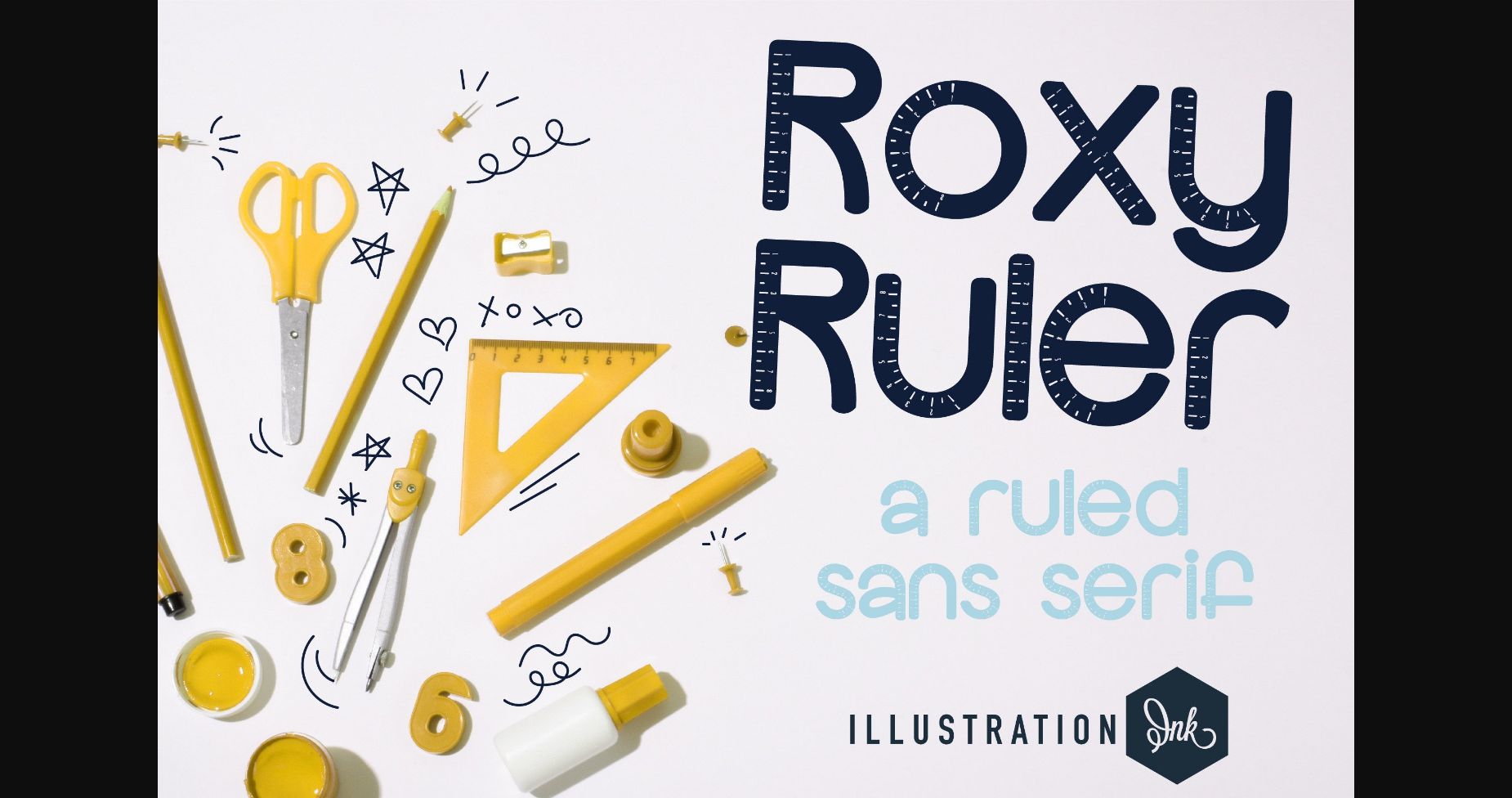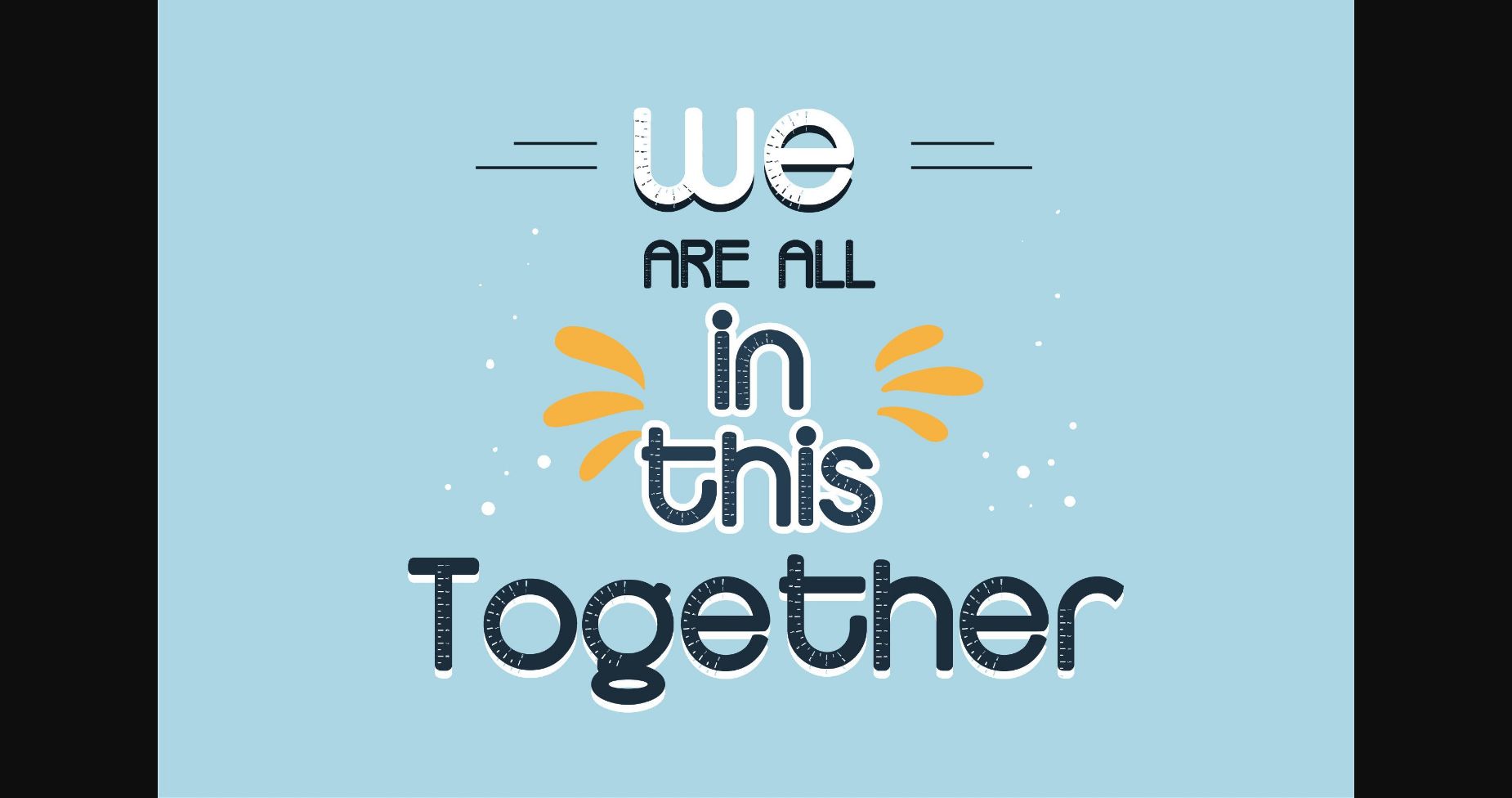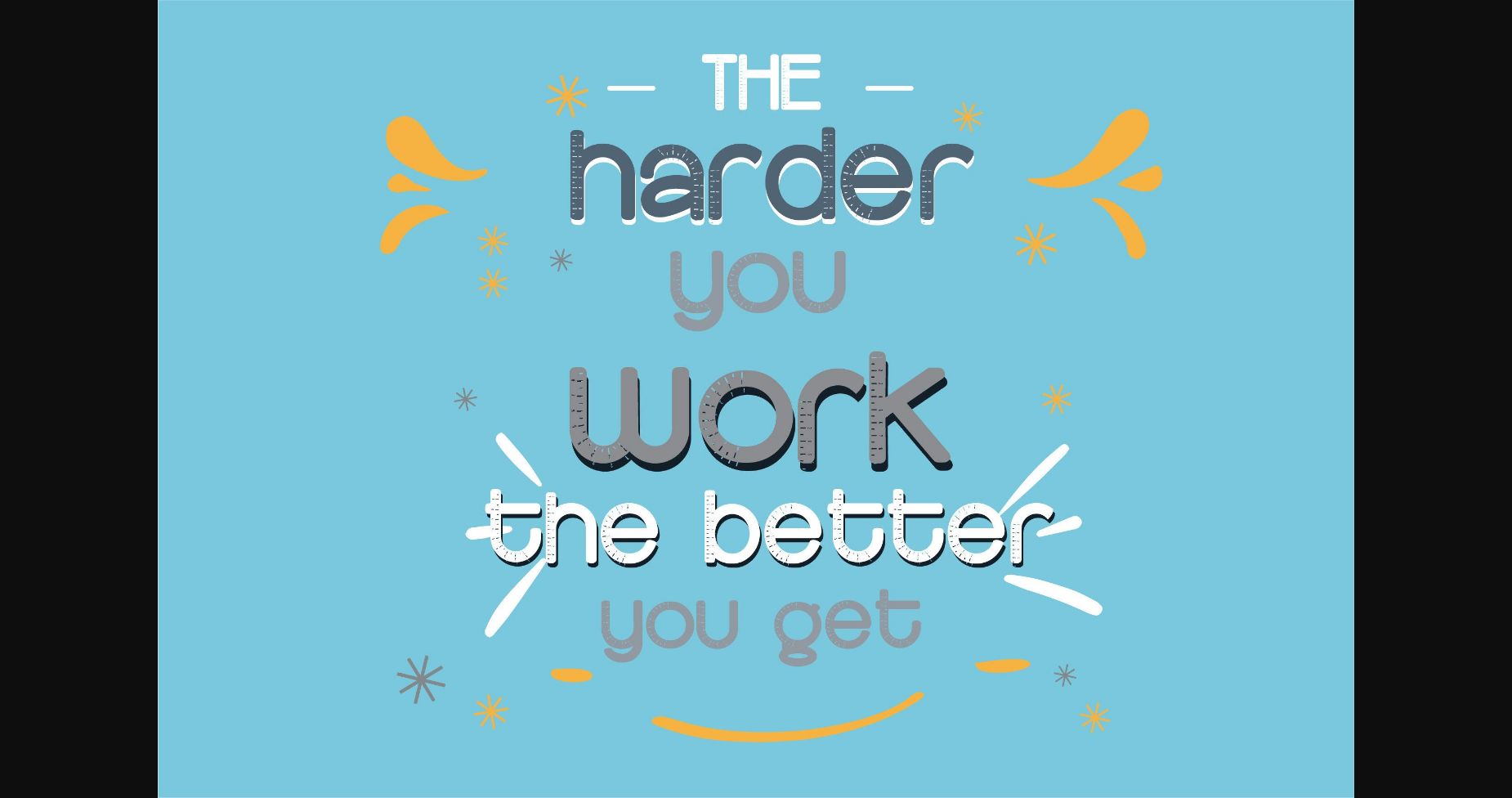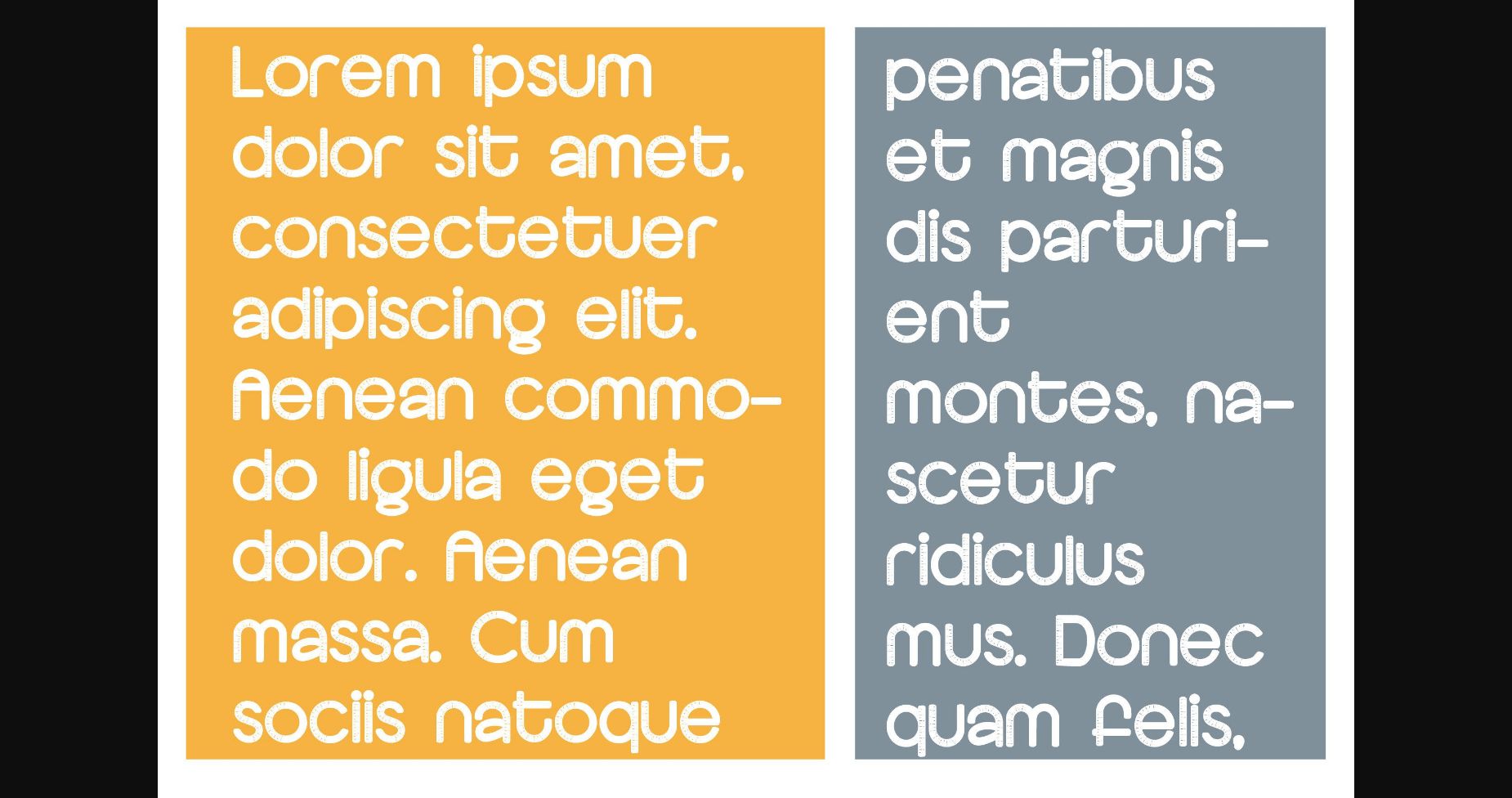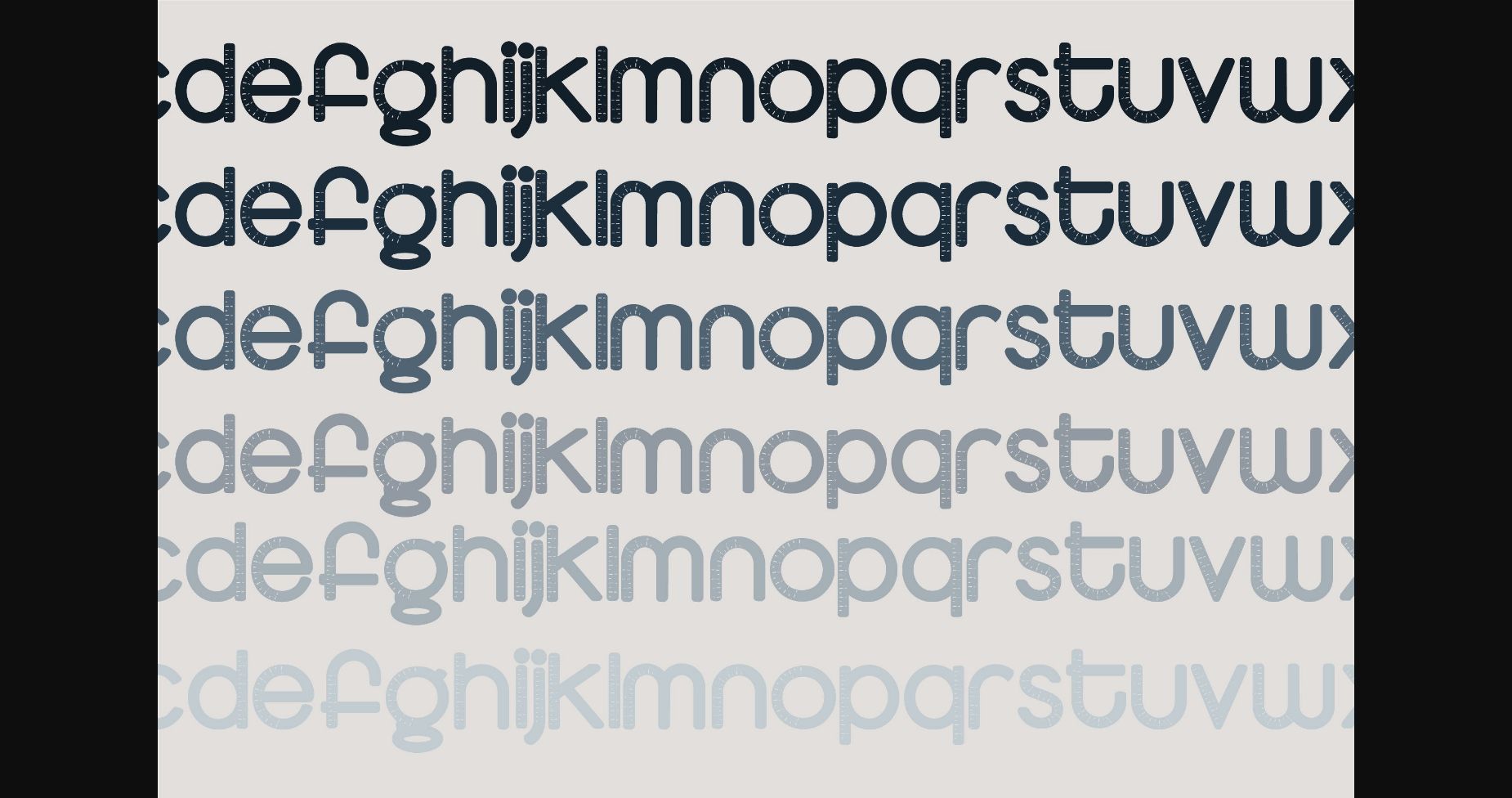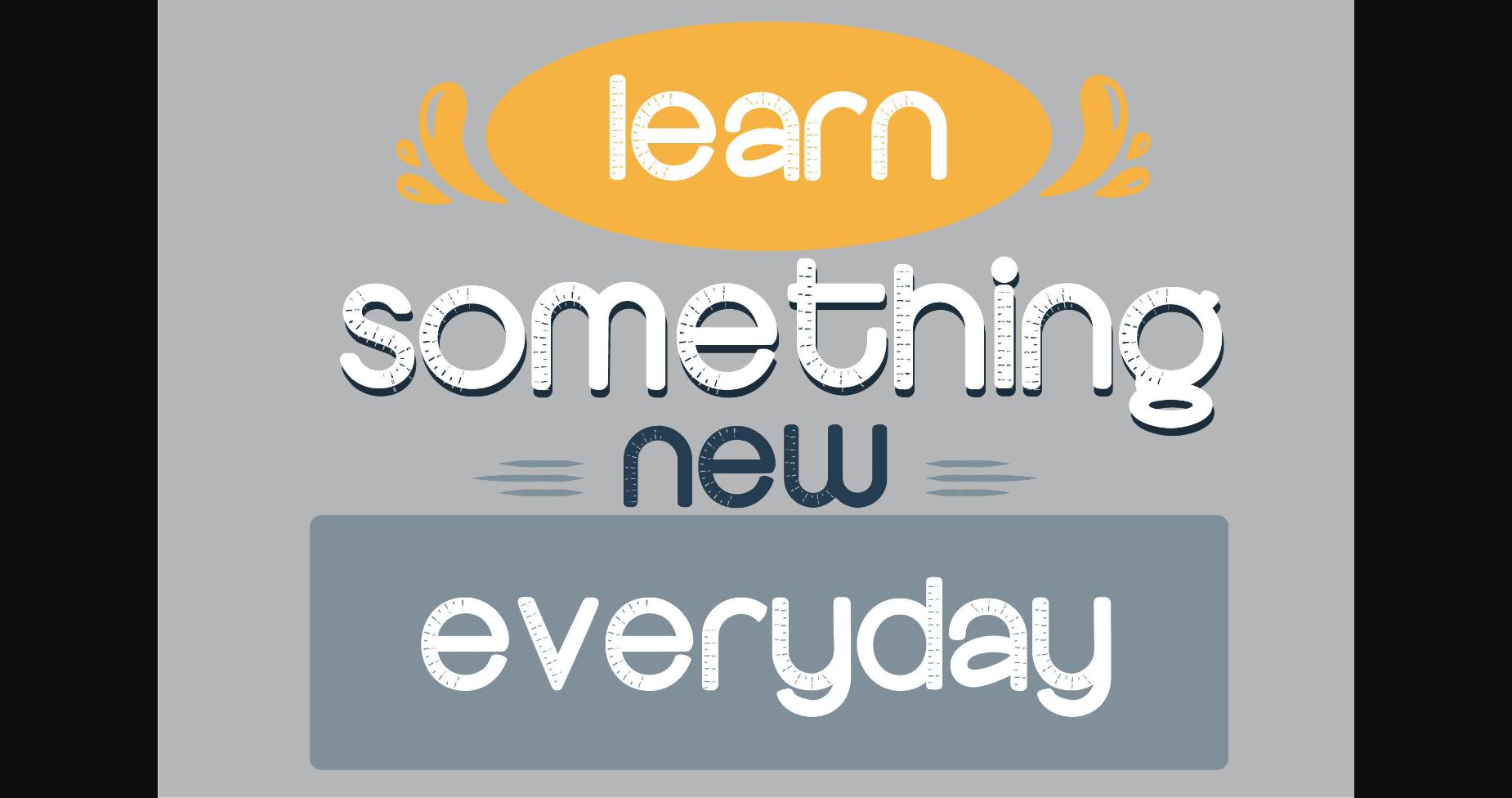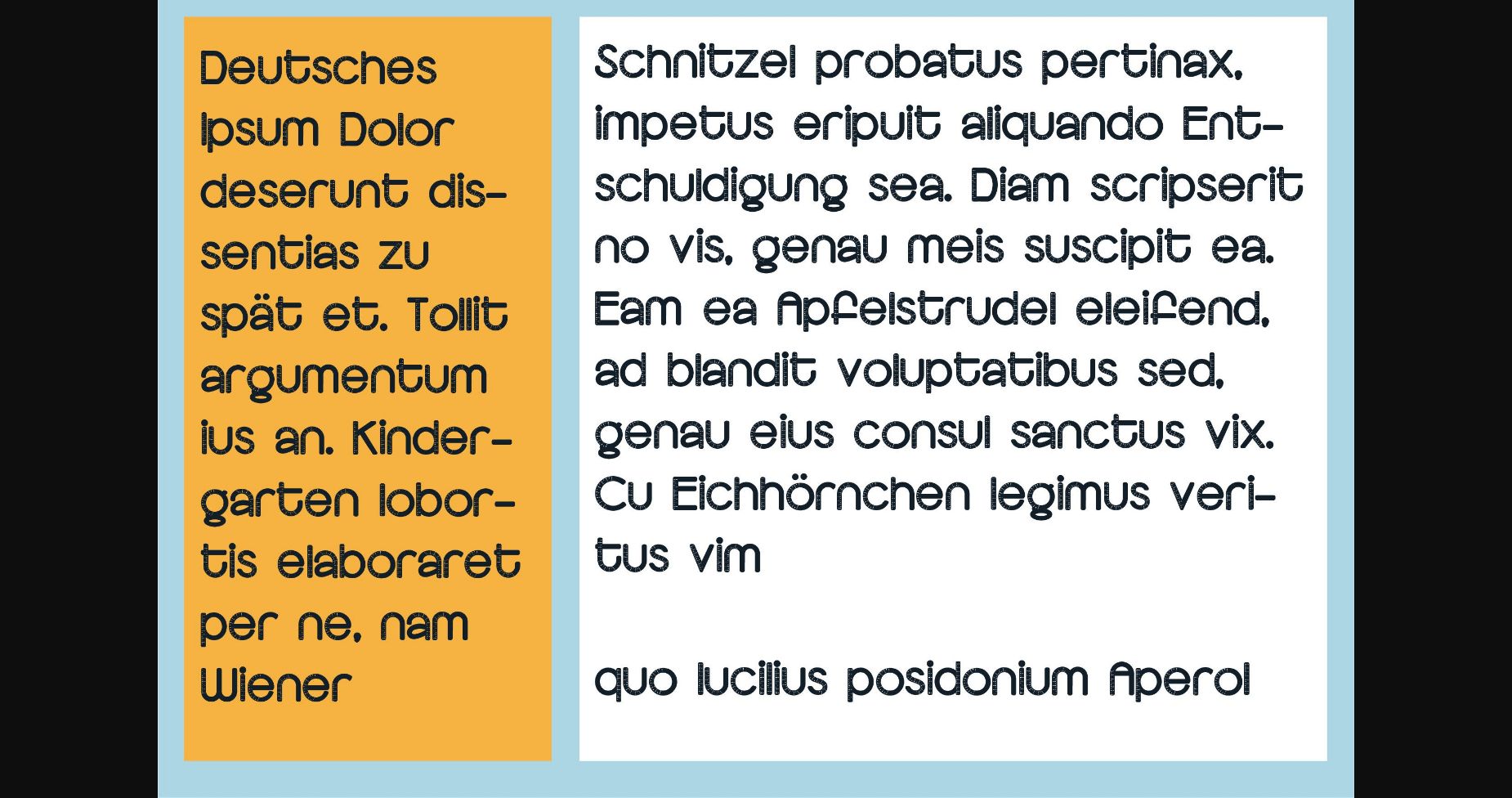
HomeSans Serif FontsRoxy Ruler Font Sans Serif Fonts Roxy Ruler Font FacebookXPinterestWhatsApp 1 of 9 ... Roxy Ruler Font Poster 2... Roxy Ruler Font Poster 3... Roxy Ruler Font Poster 4... Roxy Ruler Font Poster 5... Roxy Ruler Font Poster 6... Roxy Ruler Font Poster 7... Roxy Ruler Font Poster 8... Roxy Ruler Font Poster 9... About Roxy Ruler Font Roxy Ruler is a fun and quirky sans serif font that features rulers on each letter. Add it to your creative projects and make them outstanding! DOWNLOAD NOW People also explored Curly Witch Font Freshflower Font Gorgeous Teacher Font Grabit Headster Family Font Biscuit Font Minimalest Font Akidan Hatory Font Christmas Bright 12 Font 432 0 TagsRoxy Ruler Font Previous articleSchool Bus FontNext articleAquarello Font LEAVE A REPLY Cancel reply Comment: Please enter your comment! Name:* Please enter your name here Email:* You have entered an incorrect email address! Please enter your email address here Website: Save my name, email, and website in this browser for the next time I comment. Personal Use Free Bukhari Script Personal Use Free Read more about this font Aliqa Personal Use Free Read more about this font UseYourImagination Personal Use Free Read more about this font Pumpkins Candles Personal Use Free Read more about this font BLOG Free Fonts Risk: Why Free Fonts Can Be Dangerous for Designers Free Fonts Risk: Why Free Fonts Can Be Dangerous for Designers Using free fonts is a common practice in web and graphic design. However, the... Where to Buy American Fonts Online in 2024 5 Fonts That Will Dominate Design Trends in 2026 Transform Your Website: Elevate Your Typography with 7 Best Web Font Generators